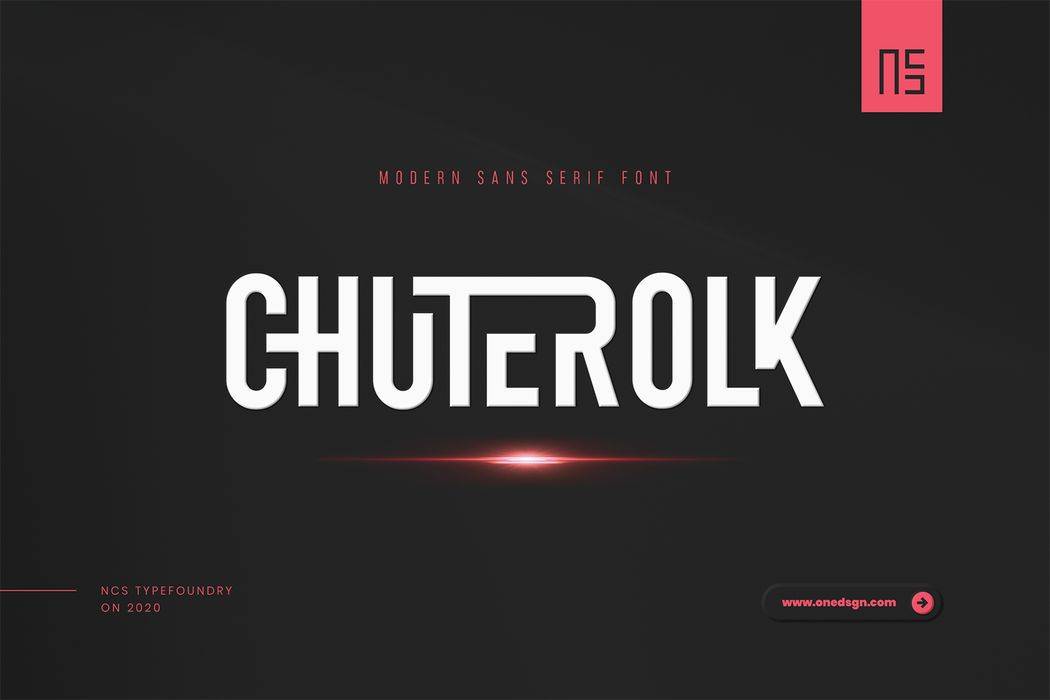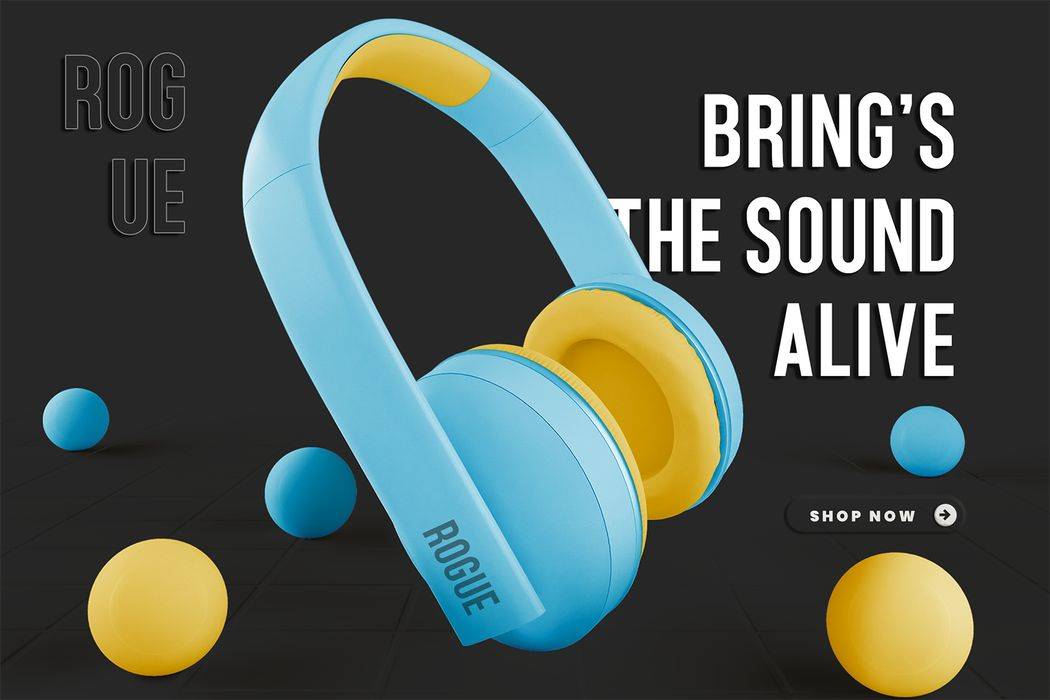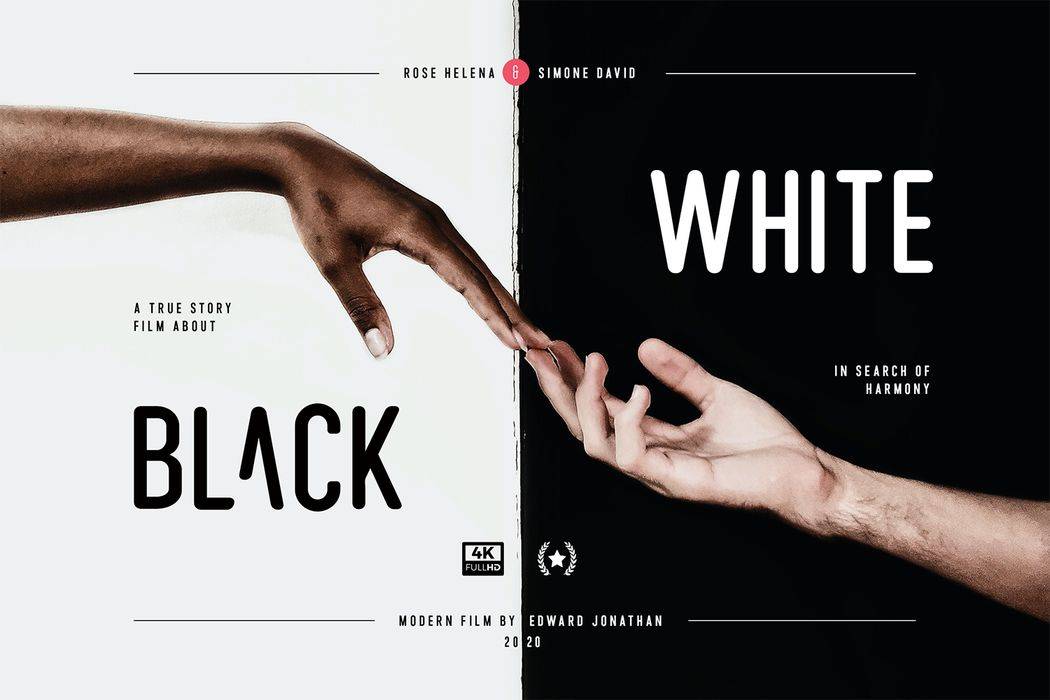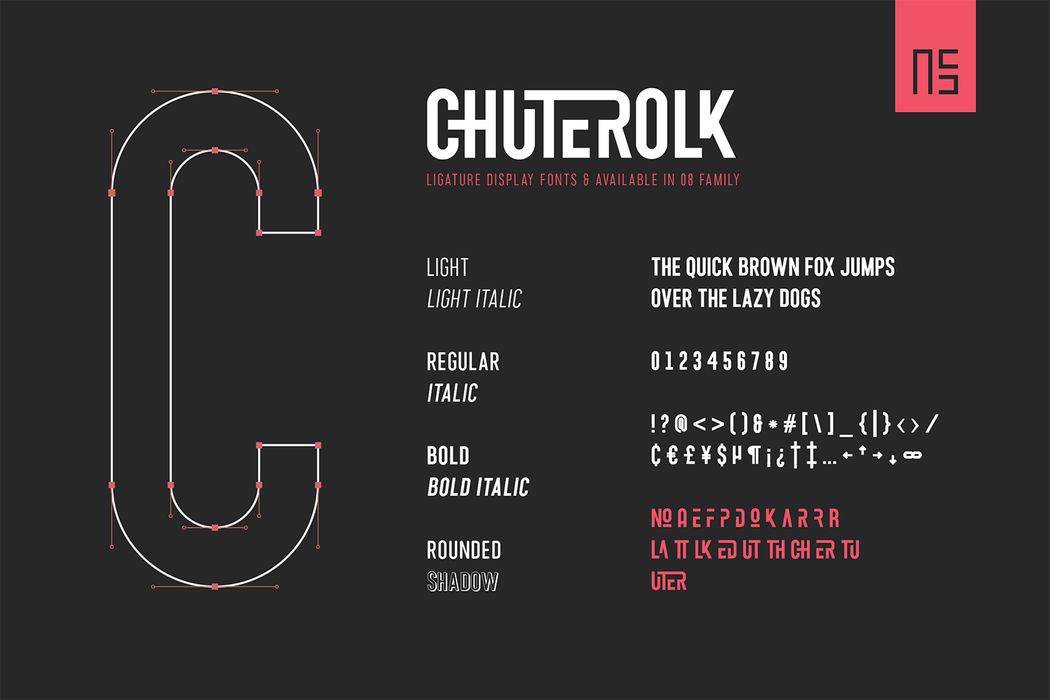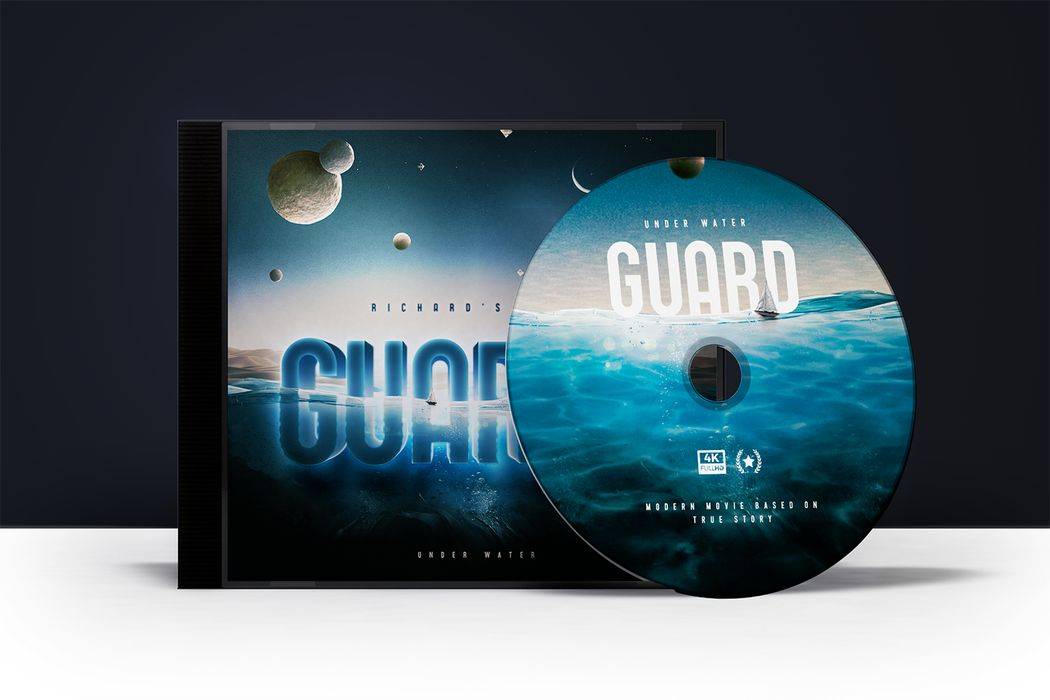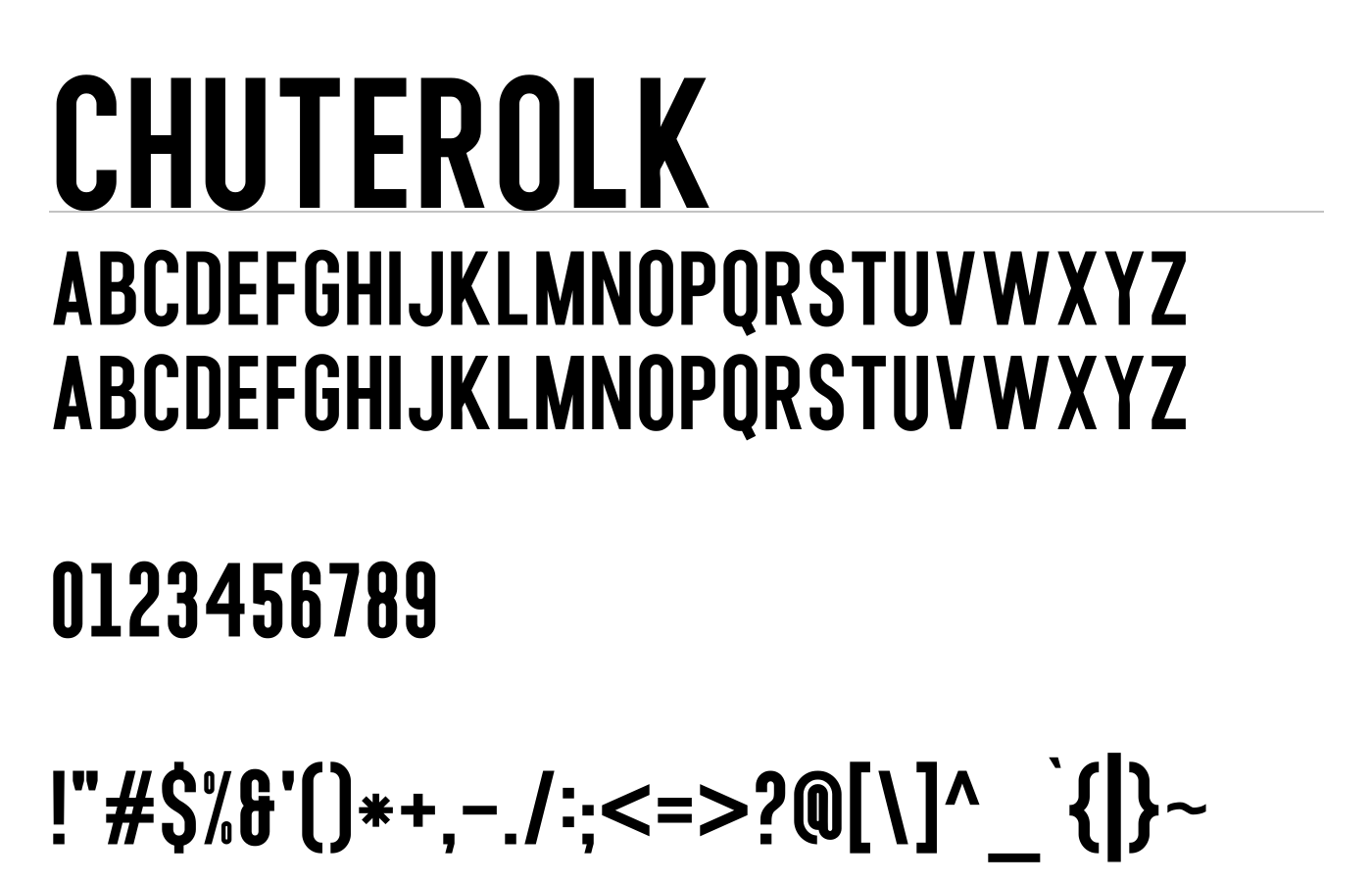
Chuterolk is a bold, condensed sans serif font with a modern and clean appearance. Its tall, uniform letterforms and strong verticality make it highly impactful and suitable for headlines and branding that demand a sleek, contemporary look. Ideal for editorial titles, posters, and logos, Chuterolk communicates confidence and clarity with an urban, no-nonsense style.
Chuterolk Font
About Chuterolk Font